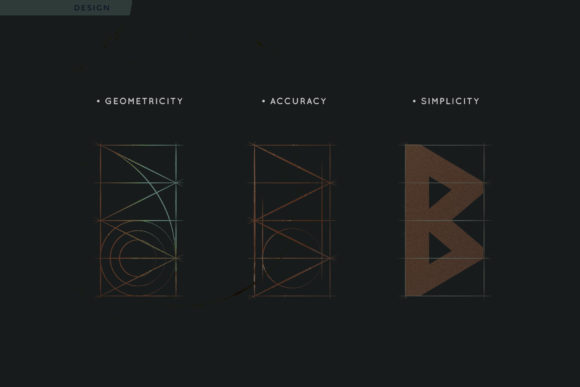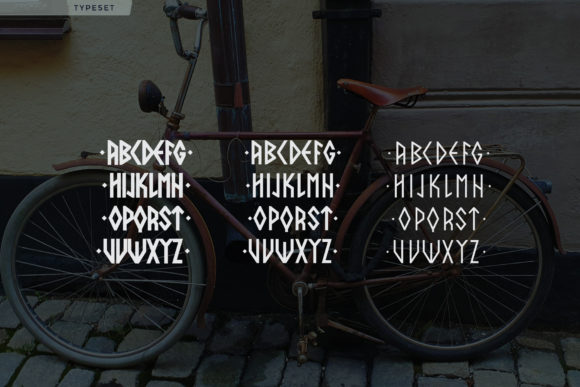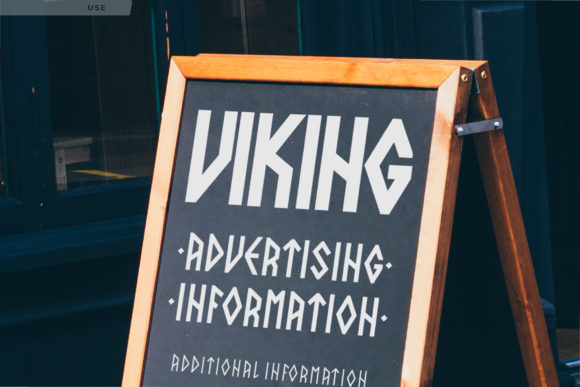
Introduction to Scandinav Font
You’re sitting at your desk, staring at a blank sheet of paper, and suddenly, a spark of creativity strikes. You envision the perfect design, with bold typography and a touch of Scandinavian charm. As a designer, you know that the right font can make or break a project, and that’s where the Scandinav Font comes in.
This modern and unique display font is a game-changer for any creative project. With its original look, it’s perfect for letterheads, titles, and stationery that exude a sense of sophistication and style. And the best part? The Scandinav Font is available as a free download, making it an invaluable design resource for designers of all levels.
Whether you’re working on a high-quality brochure or a simple business card, the Scandinav Font is sure to elevate your design and leave a lasting impression. Its transparent background and clean lines make it a versatile choice for any creative project, and its high-quality design ensures that it will stand out from the crowd.
Key Features of Scandinav Font
- High-quality design: This font features a unique Scandinavian aesthetic, perfect for adding a touch of elegance to your design.
- Perfect for creative projects: The Scandinav Font is ideal for use in graphic design, web design, and other creative projects that require a unique and stylish font.
- Design resource: This font serves as a valuable design resource for designers and artists looking to add a touch of Scandinavian flair to their work.
Honest Review: Scandinav Font
As a designer, I’m always on the lookout for high-quality design resources to elevate my creative projects. The Scandinav Font caught my attention with its sleek and modern aesthetic, making it a great addition to my design library.
What works well: ✨ The Scandinav Font offers a range of weights and styles, allowing for versatility in my designs. The font is also free to download, making it an excellent resource for designers on a budget. I appreciate the transparent background, which makes it easy to use in combination with other design elements.
Limitations: ⚠️ While the Scandinav Font is a great design resource, I’ve noticed that it can be a bit challenging to read in smaller font sizes. Additionally, the font may not be suitable for body text due to its modern and decorative style.
Overall, I’m impressed with the Scandinav Font and would recommend it for designers working on creative projects that require a high-quality, modern font. The Scandinav Font is a valuable addition to any design library, and its free download makes it an excellent resource for designers of all levels.
- Suitable for creative projects
- Range of weights and styles
How to Use Scandinav Font
Tips for Getting the Most Out of Scandinav Font
To get the most out of Scandinav Font, use it in combination with a transparent background to create a clean and modern design. You can also experiment with different font sizes and styles to create visual interest.
Common Use Cases for Scandinav Font
Scandinav Font is a versatile design resource that can be used in a variety of creative projects, such as graphic design, web design, and digital art. It’s particularly useful for creating modern and minimalist designs with a high-quality feel.